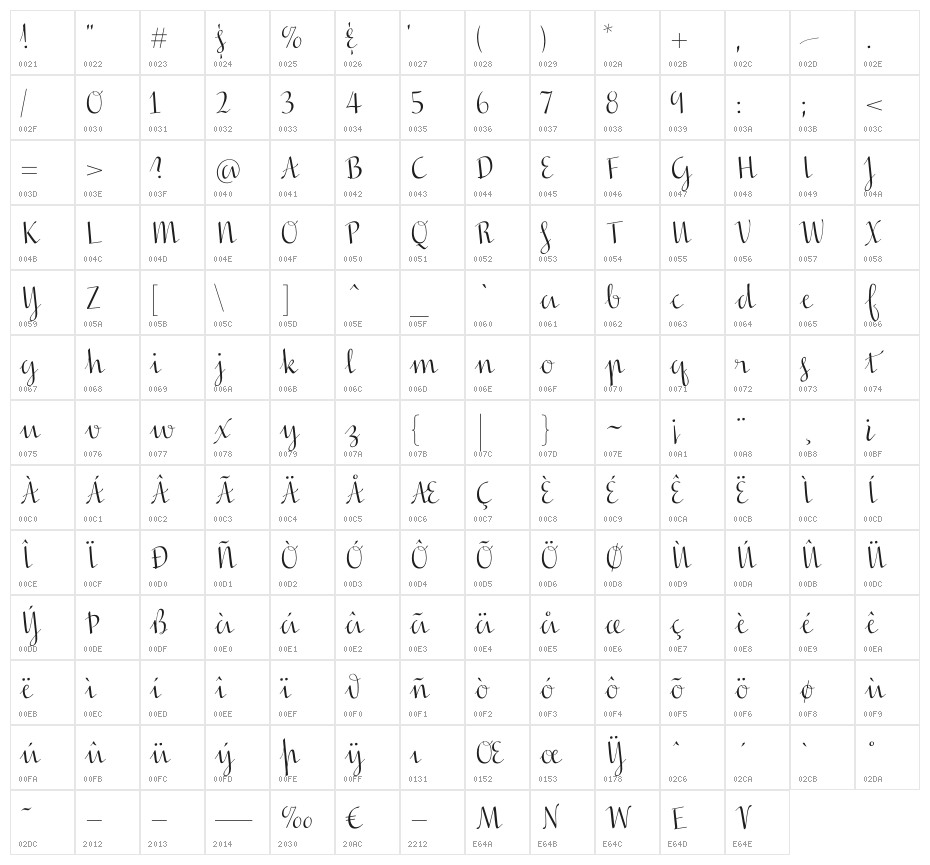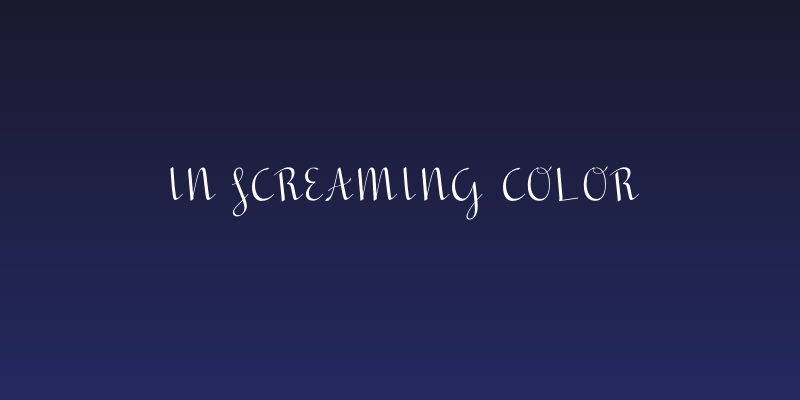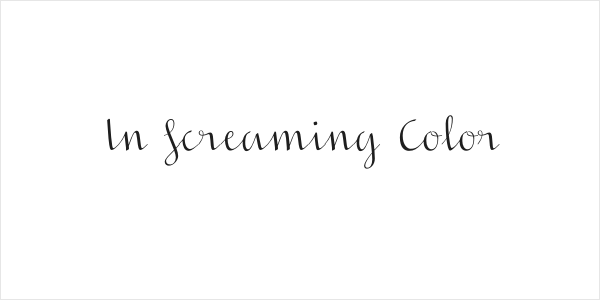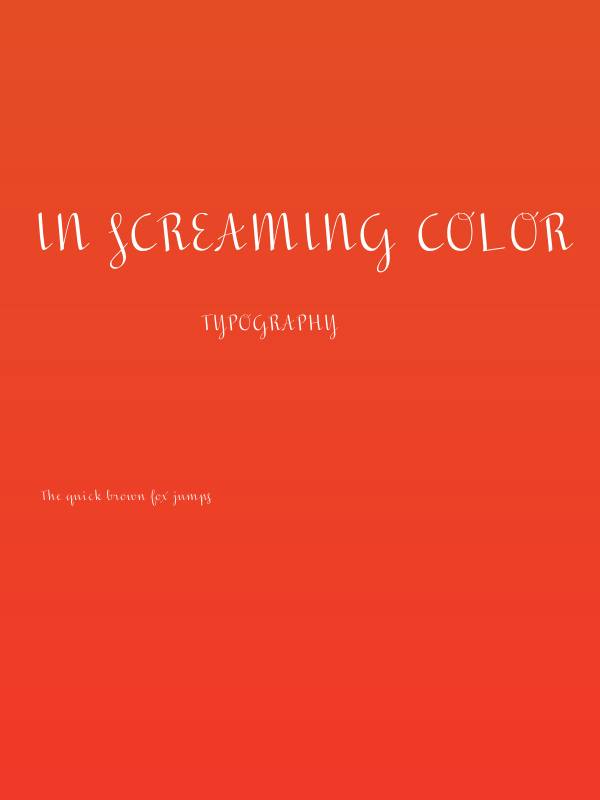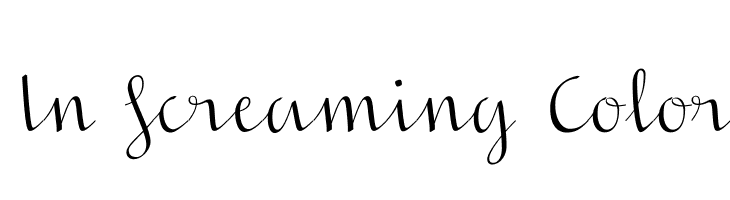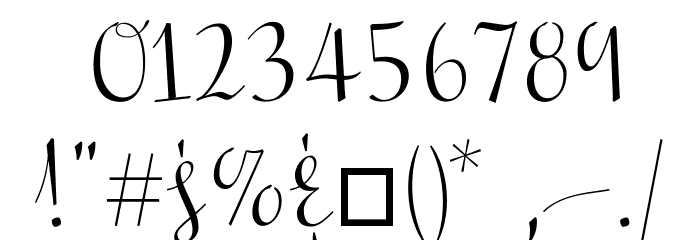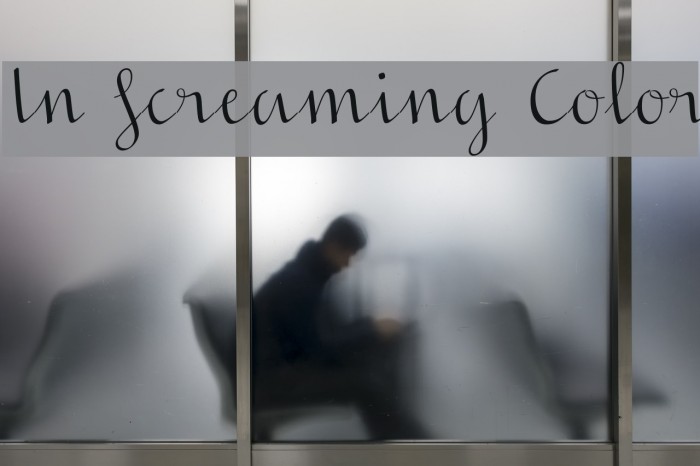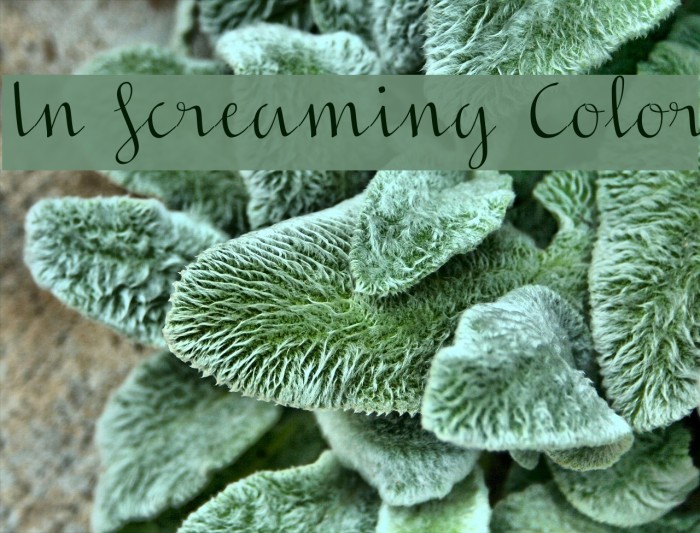
In Screaming Color Font
In Screaming Color Description
This font features a lively and expressive script style, characterized by its fluid and dynamic strokes. The letters exhibit a playful yet elegant appearance, with varying stroke widths that add a sense of movement and energy. The uppercase letters are bold and slightly slanted, while the lowercase letters maintain a consistent flow, enhancing readability. The numerals are distinct and maintain the same energetic style, making them stand out. Special characters are creatively designed, adding to the overall artistic feel of the font. This font is perfect for projects that require a touch of creativity and flair.
| Use Case | Logos, Invitations, Artistic projects |
| Proposed Projects | Ideal for wedding invitations, greeting cards, artistic posters, and branding materials that require a creative touch. |